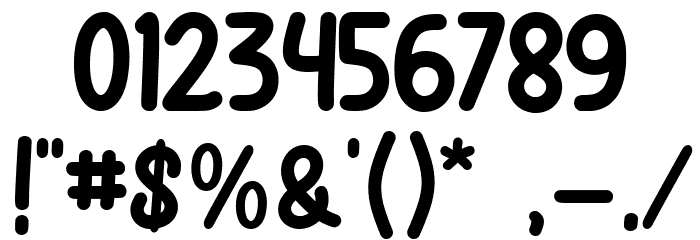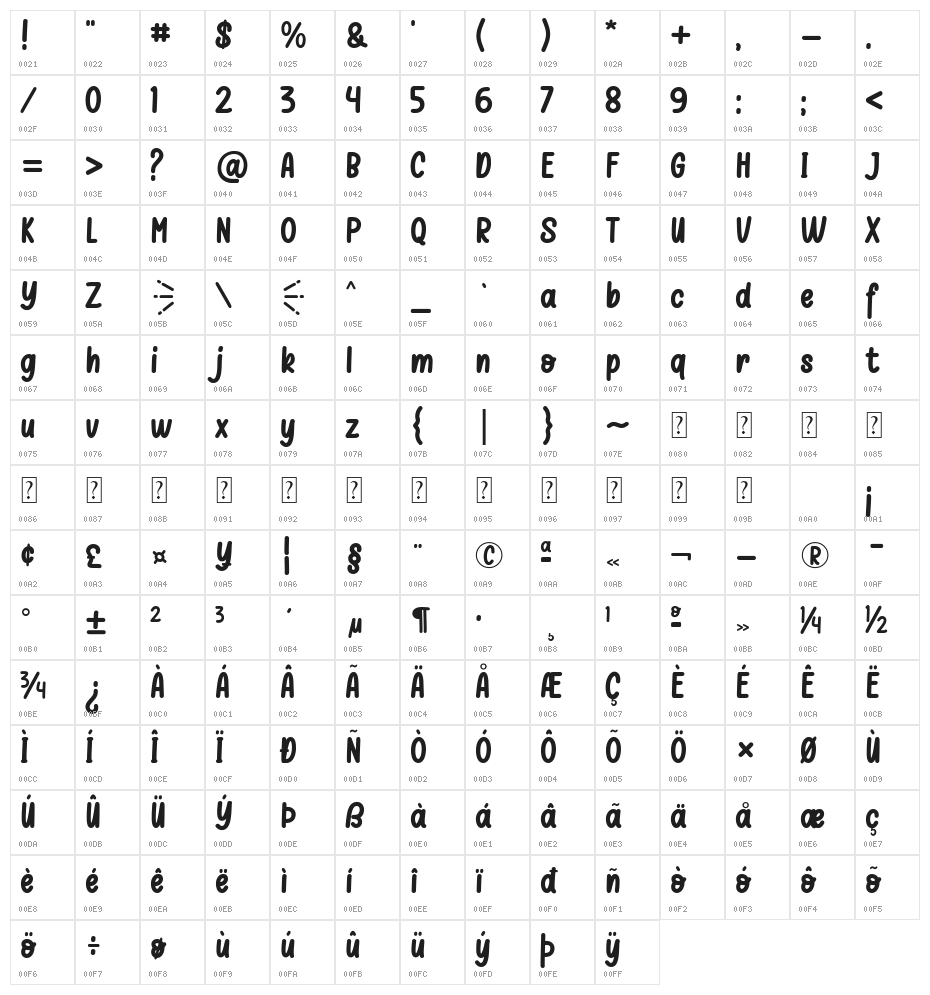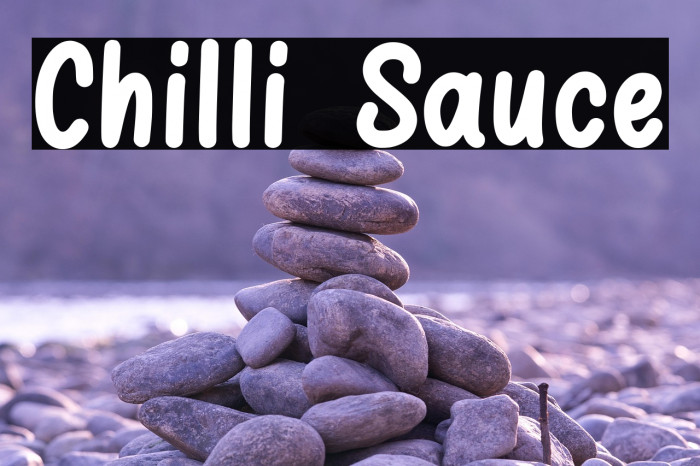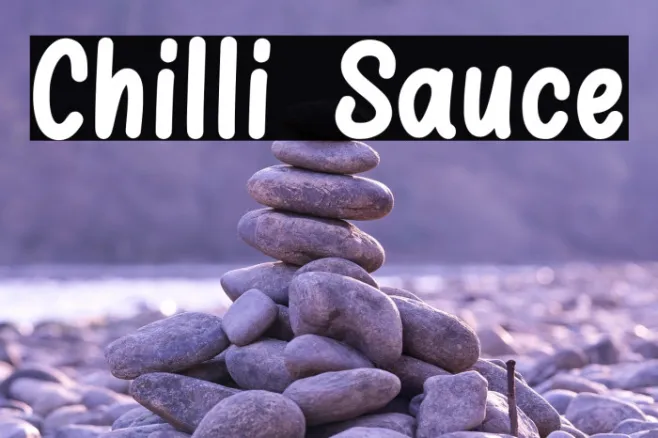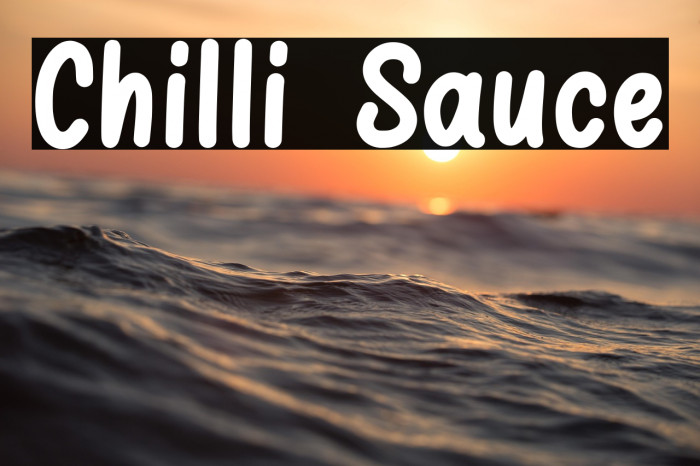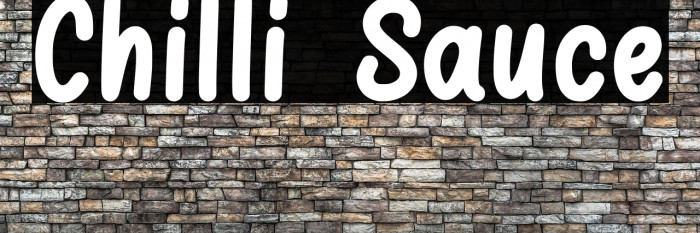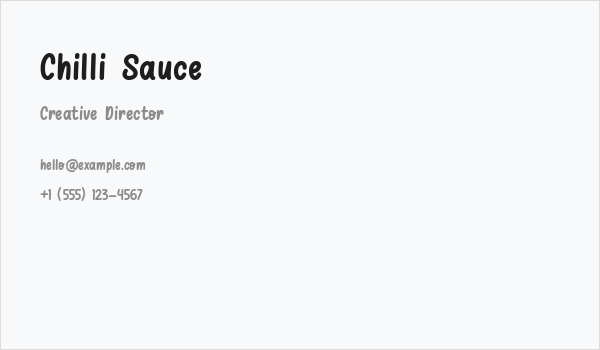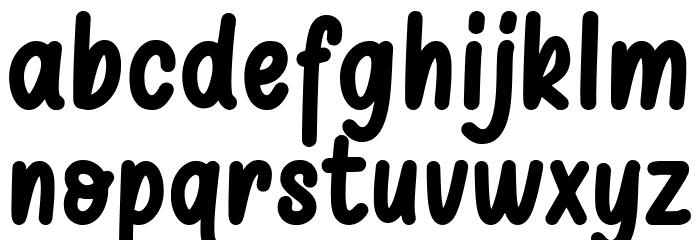
Chilli Sauce Font
Chilli Sauce Description
This playful and bold font features rounded edges and a handwritten style, giving it a friendly and approachable appearance. The letters are slightly condensed, with a consistent stroke width that maintains readability while adding a touch of whimsy. The uppercase and lowercase characters are well-balanced, and the numerals are clear and distinct. Special characters are included, enhancing its versatility for various design needs. Its overall style is casual yet impactful, making it suitable for projects that require a personal touch.
| Use Case | Headlines, Logos, Social media graphics |
| Proposed Projects | Ideal for children's books, playful branding, casual invitations, and social media graphics. |